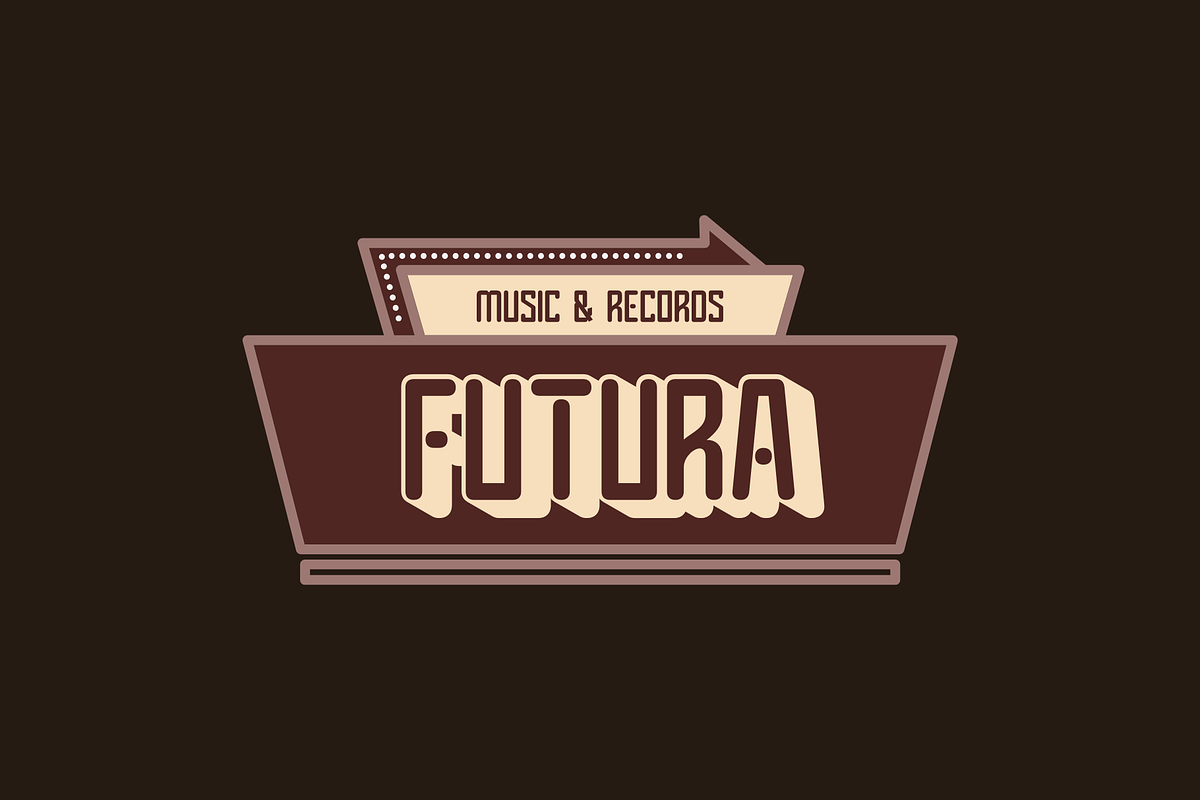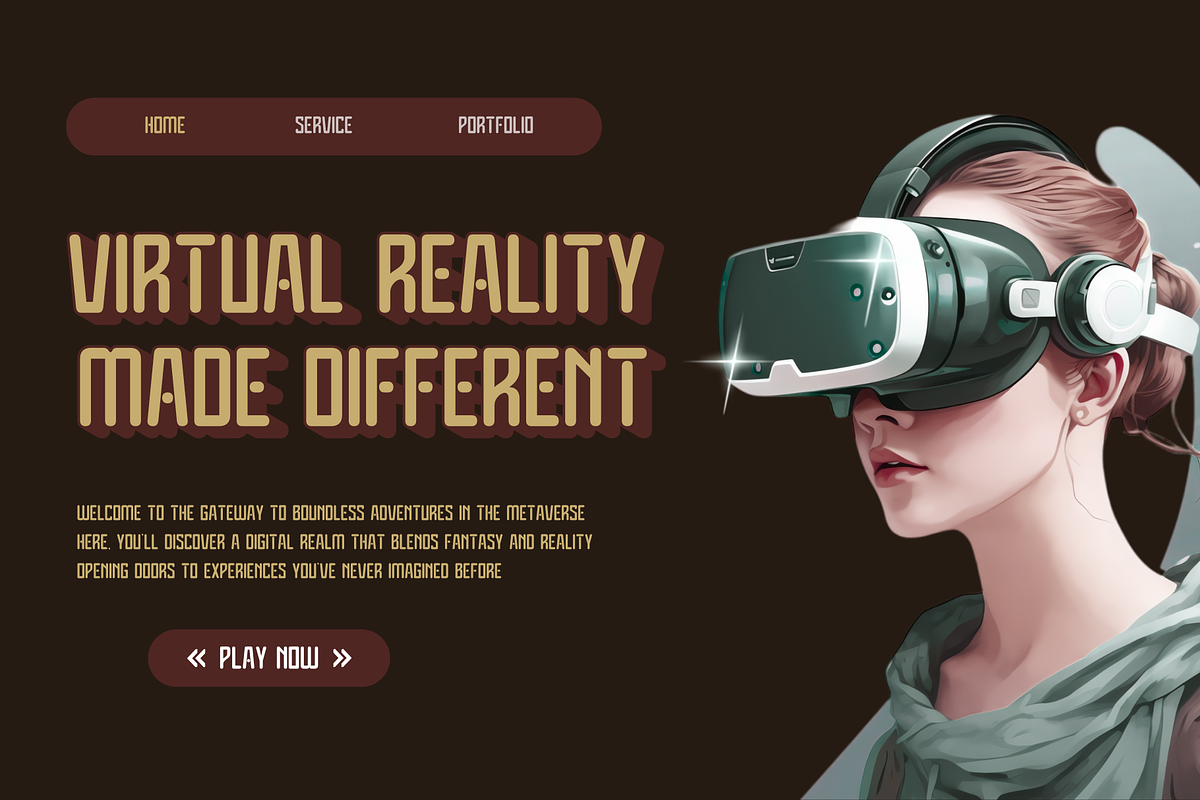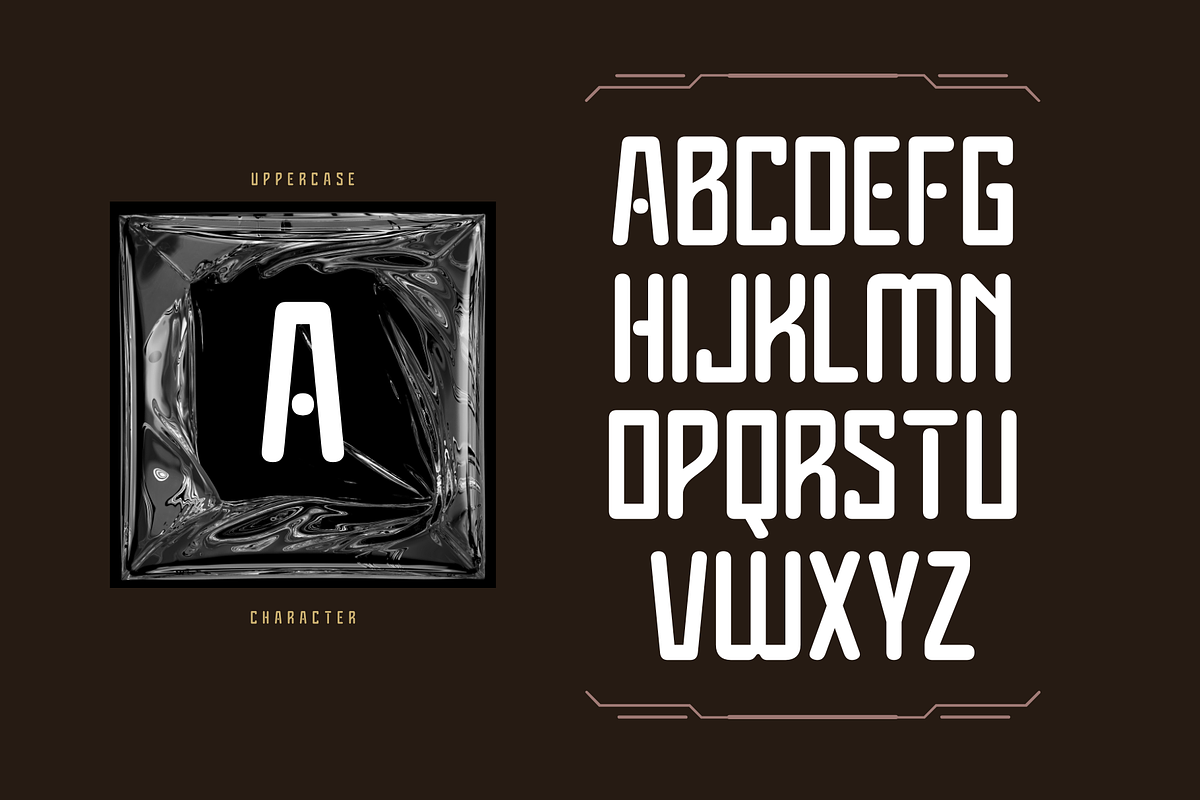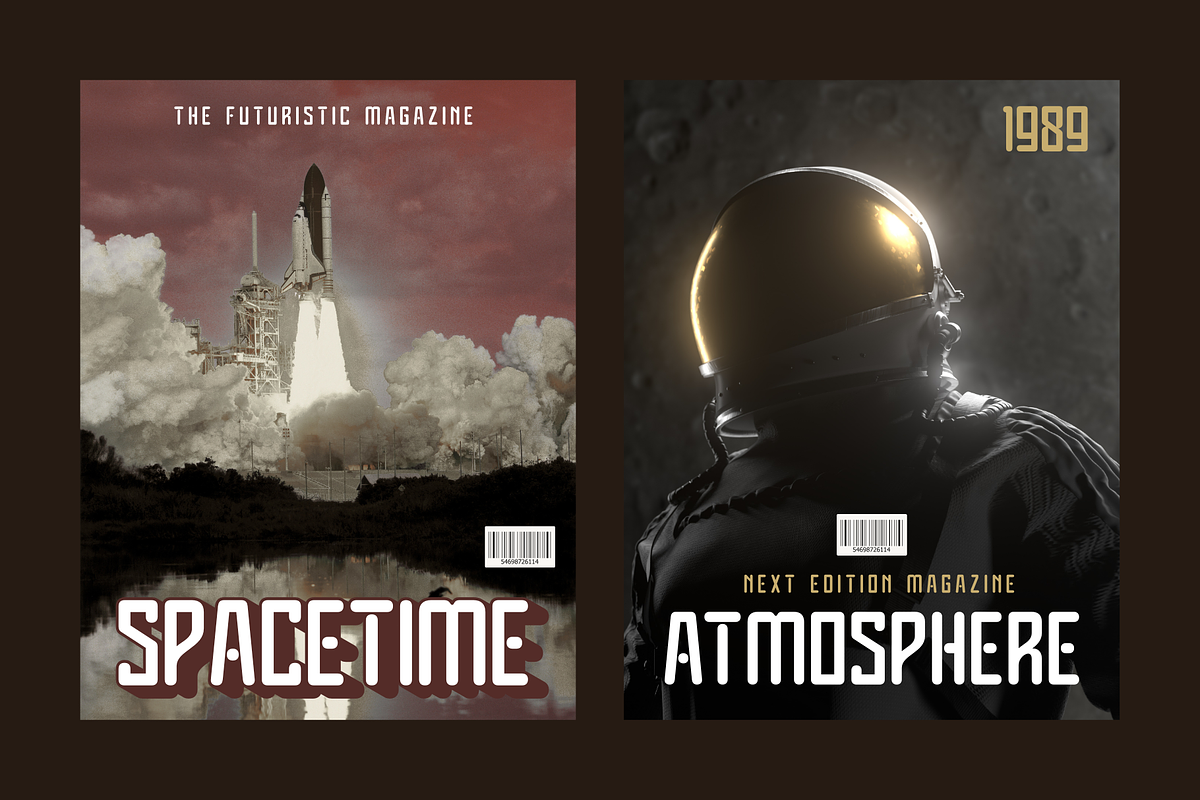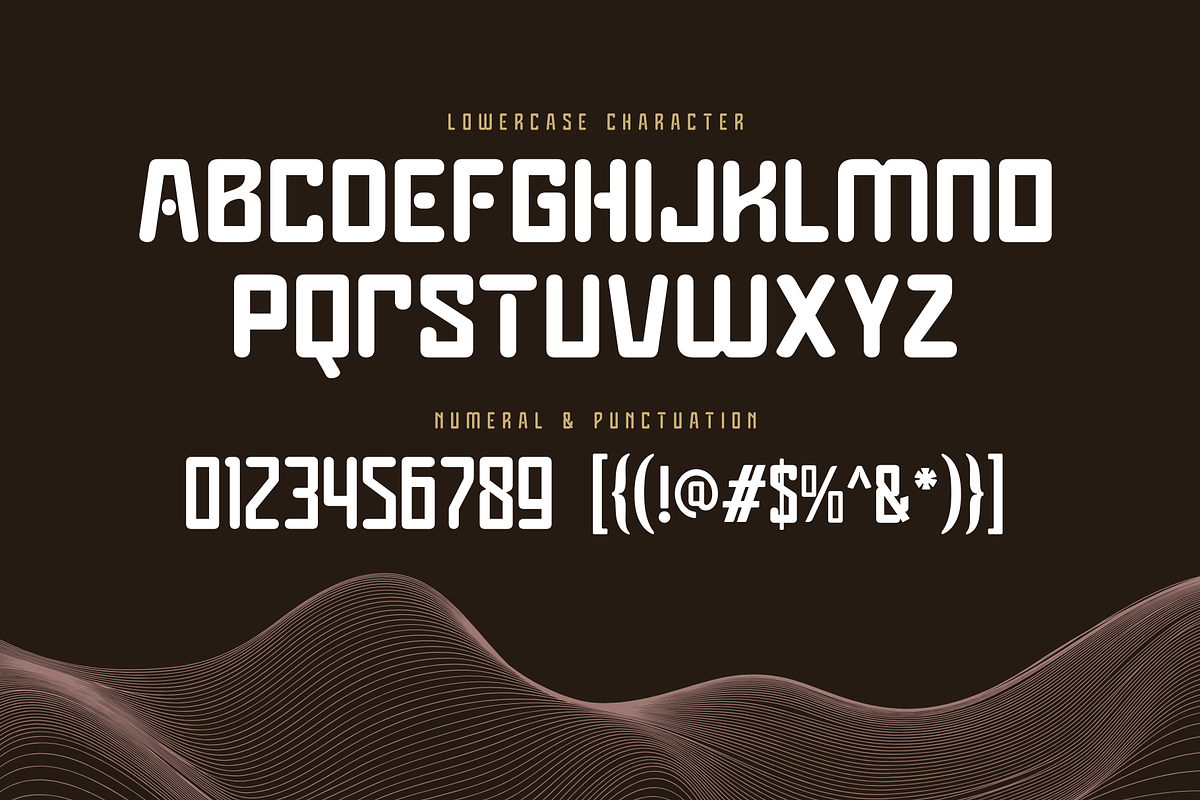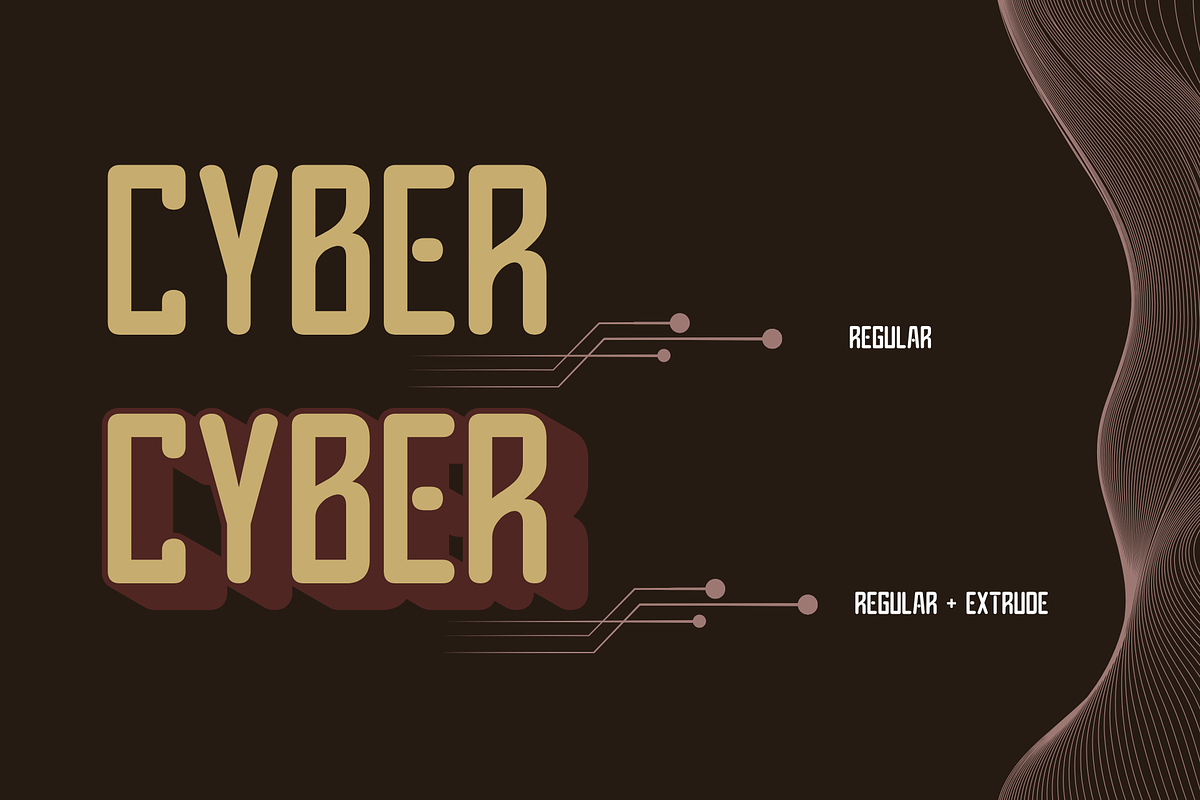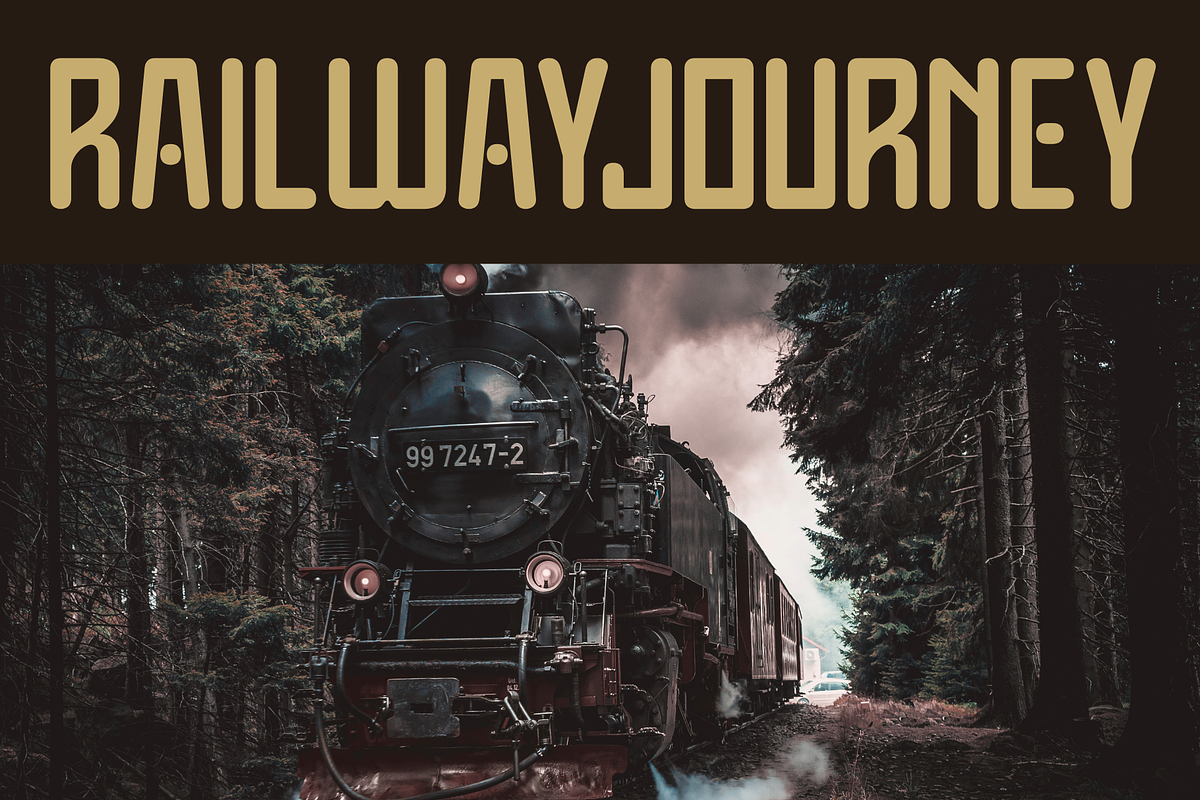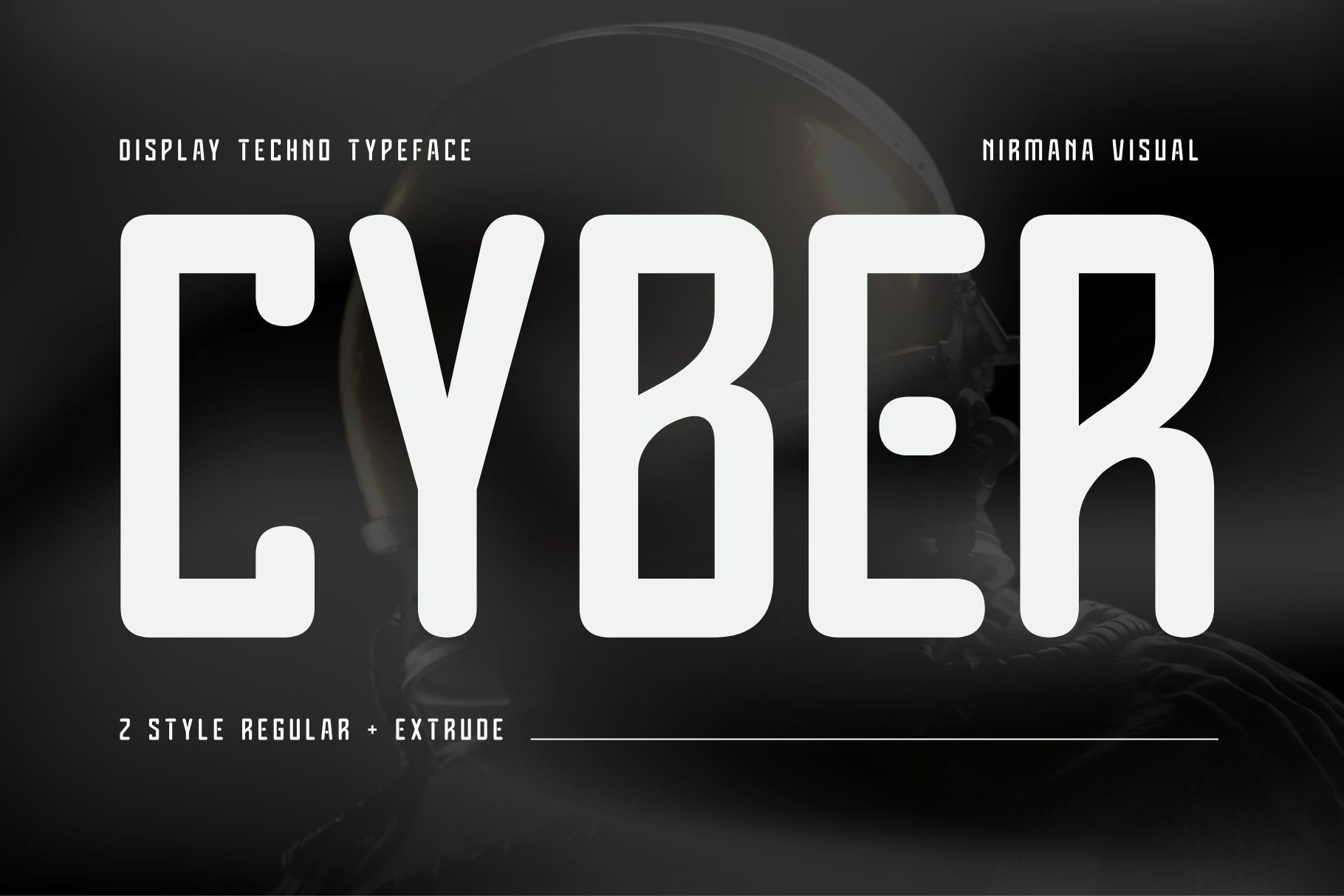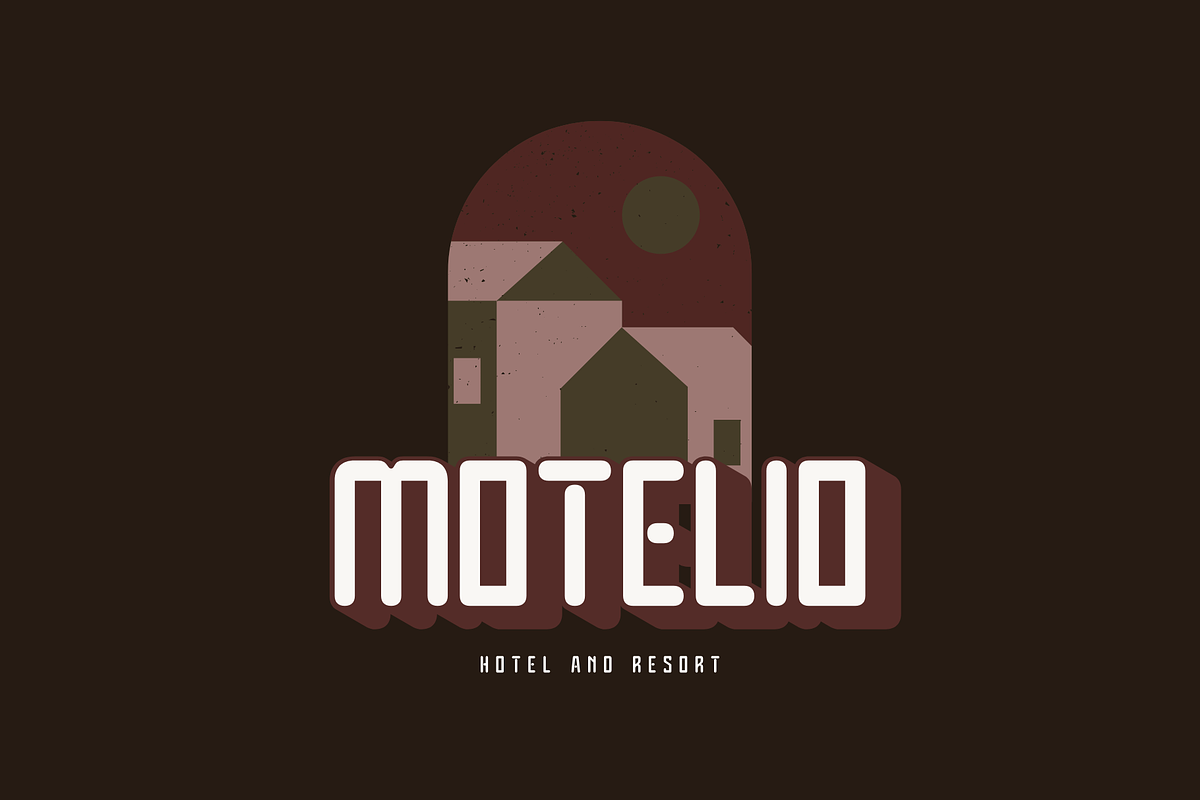
Cyber Techno - Modern Logo Font
Cyber Techno offers beautiful typographic harmony for a diversity of design projects, including logos & branding, social media posts, advertisements & product designs.